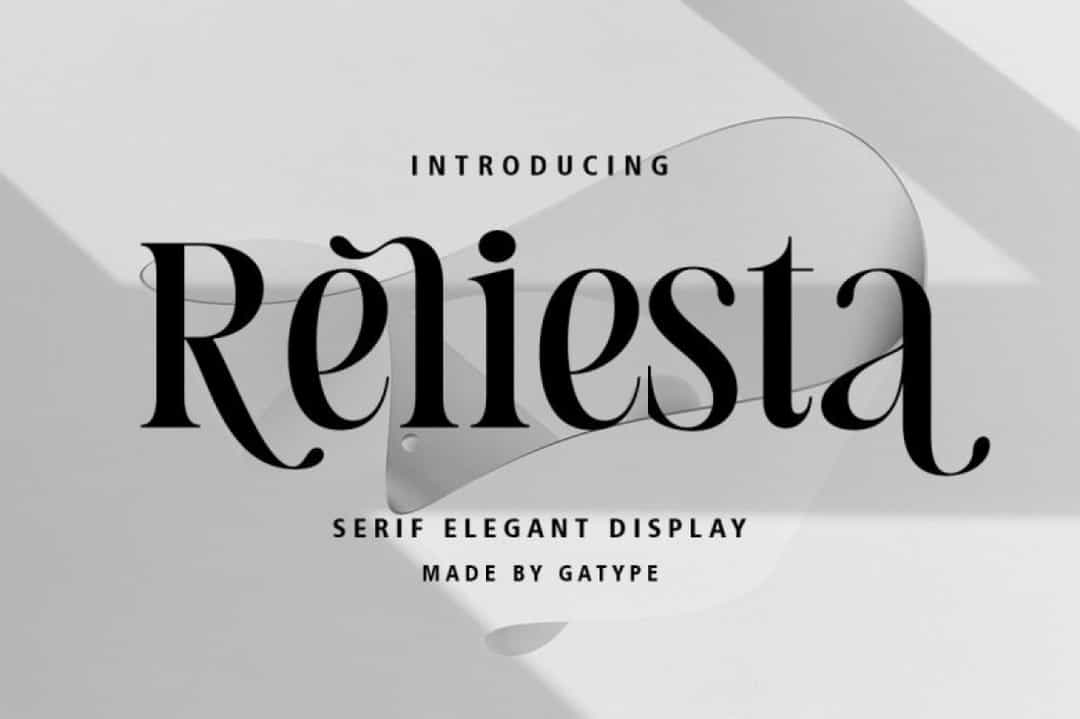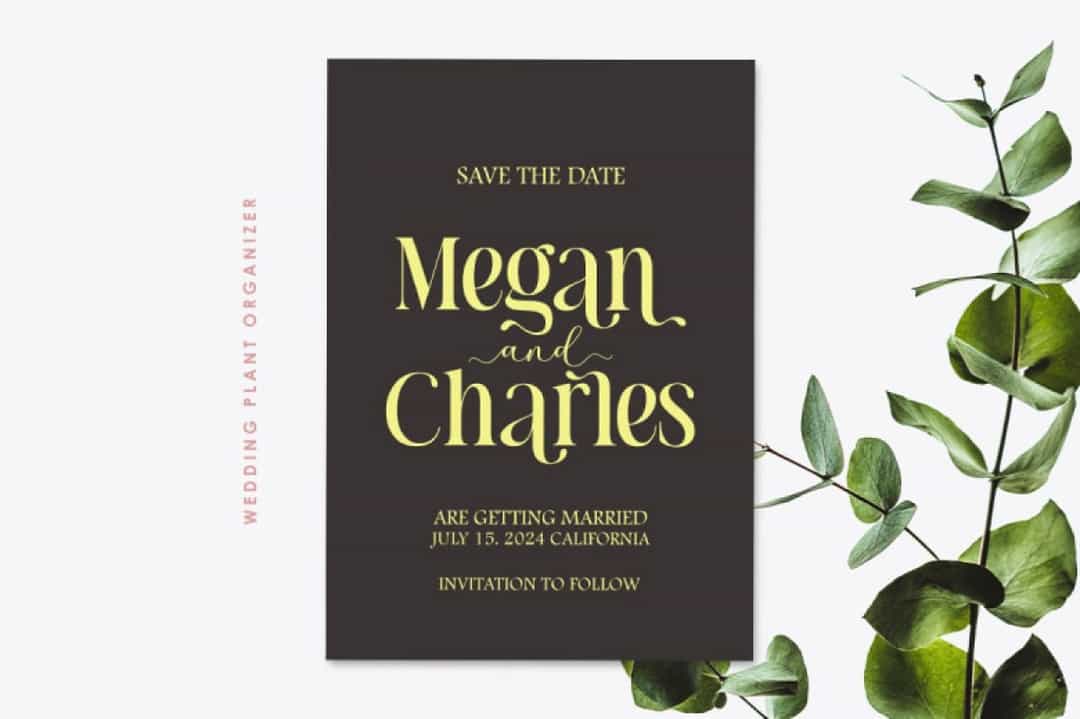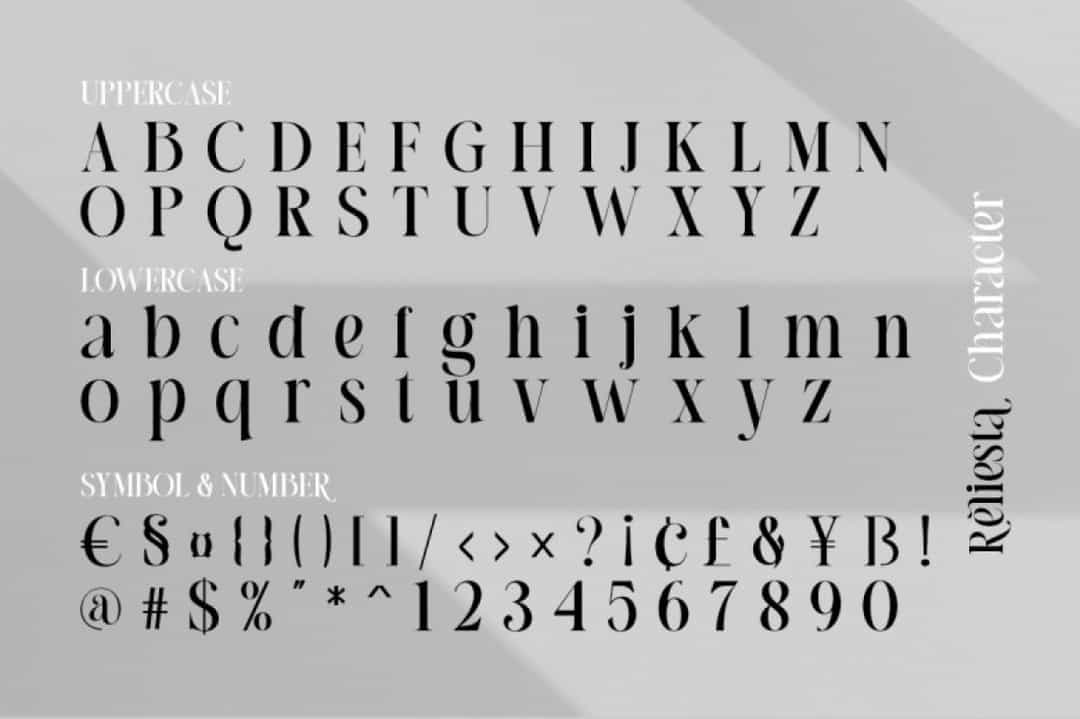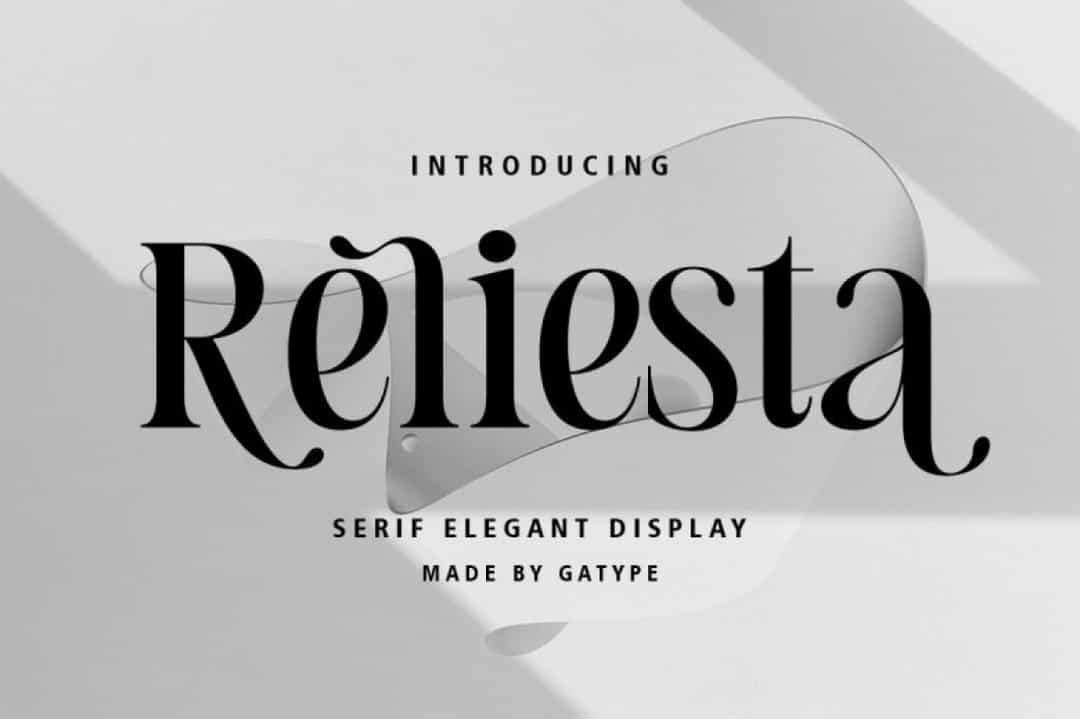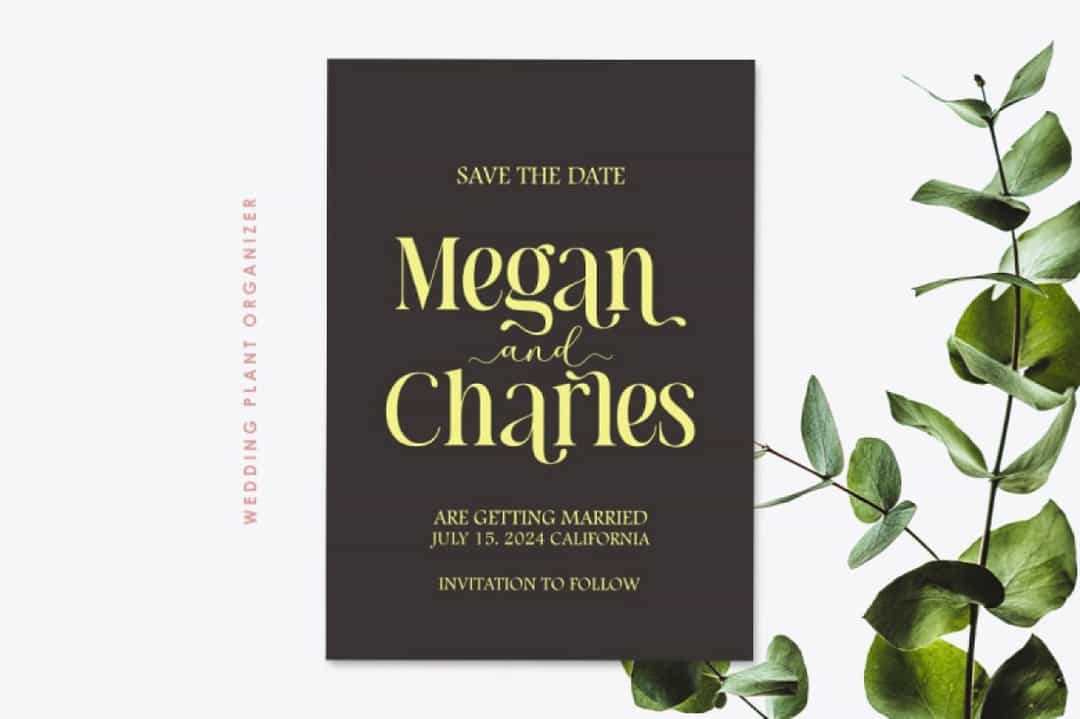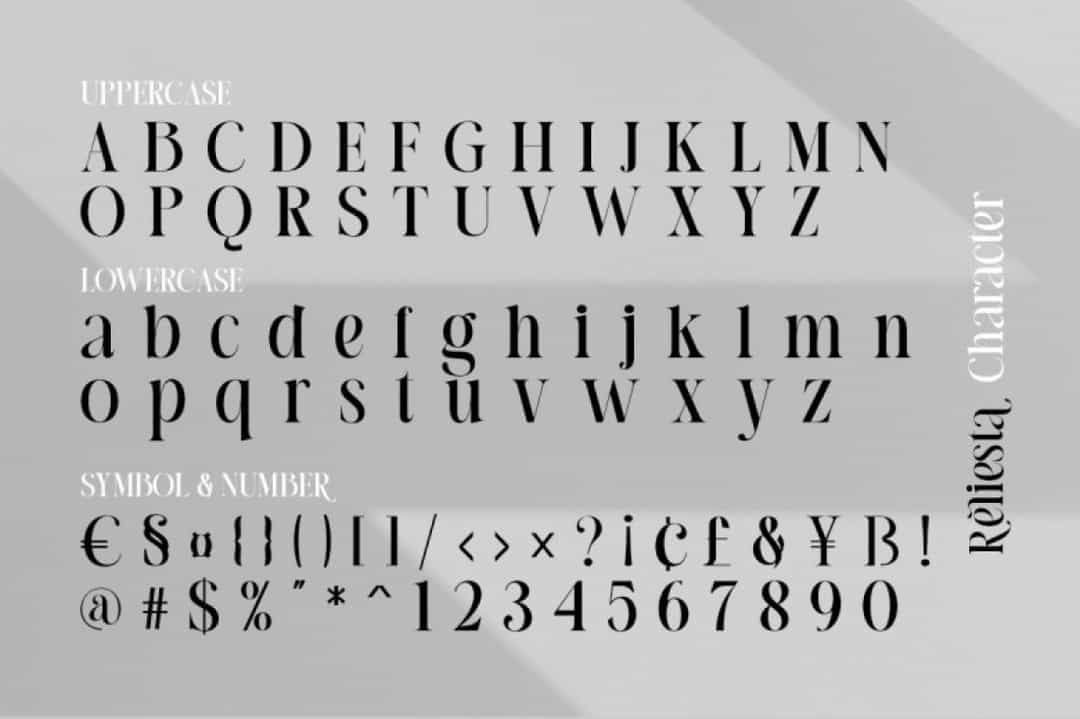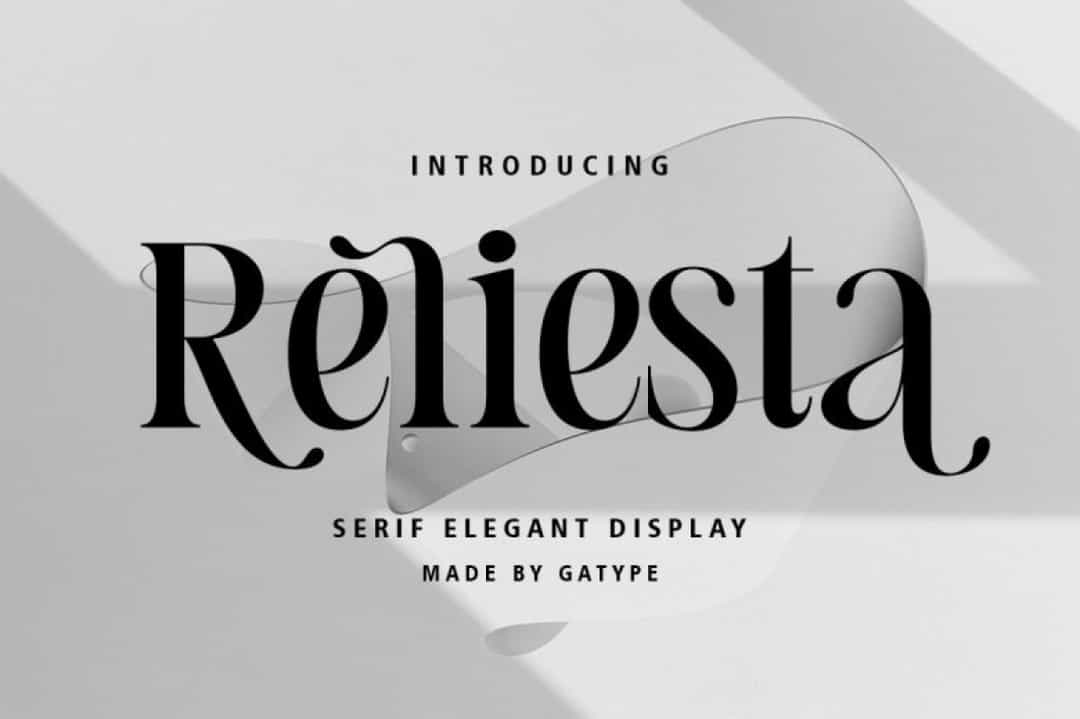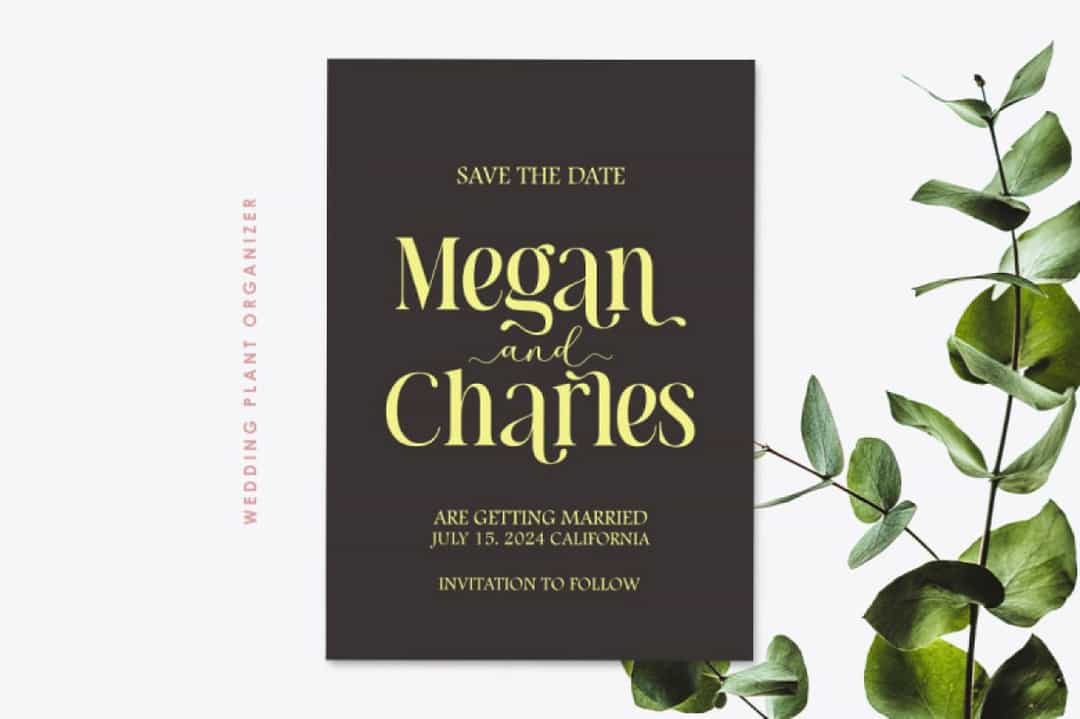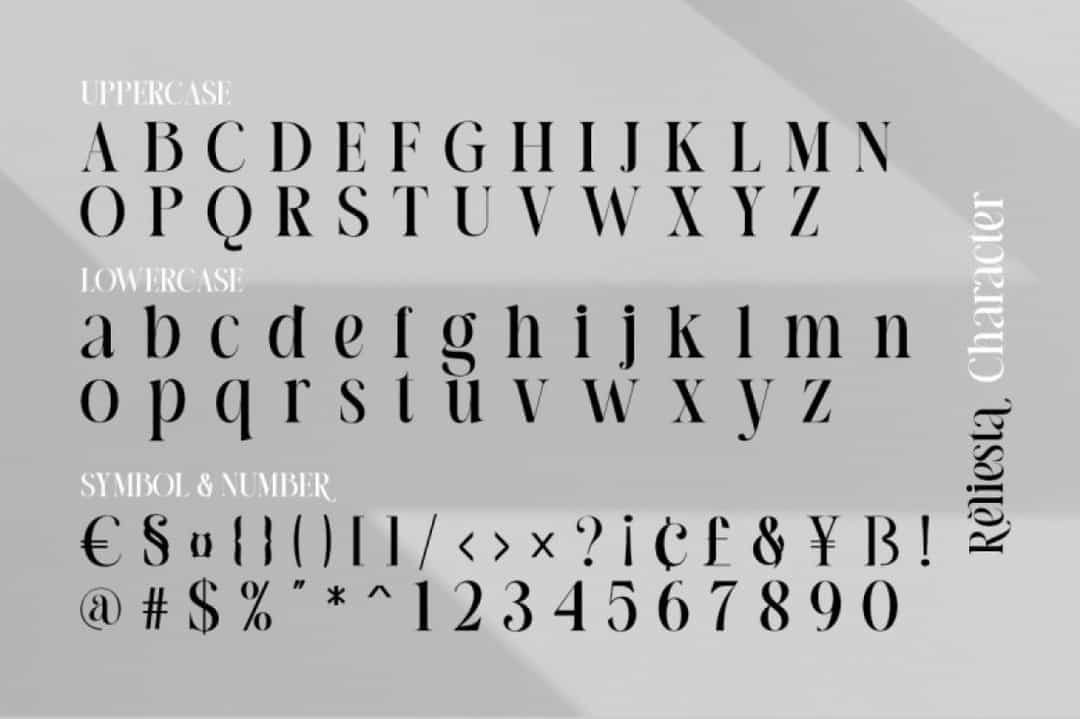
Discover Reliesta Font, part of the Serif Display collection—a versatile and unique font perfect for adding a personal touch to your projects. Download it for free and enjoy crafting designs with style, from invitations to social media posts. This font is available exclusively for personal use, giving you the freedom to create without limits. Unlock your creativity with Reliesta Font today!
Reliesta offers a natural style combined with chic and contemporary design. Its serif font gives Reliesta an air of elegance, making this font suitable for logo use on invitations, branding efforts, photography watermarks and social media posts; packaging designs; wedding themes; labels/stationery for special events/occasions etc. Reliesta makes an impressionful first impression that sets off any overall theme!